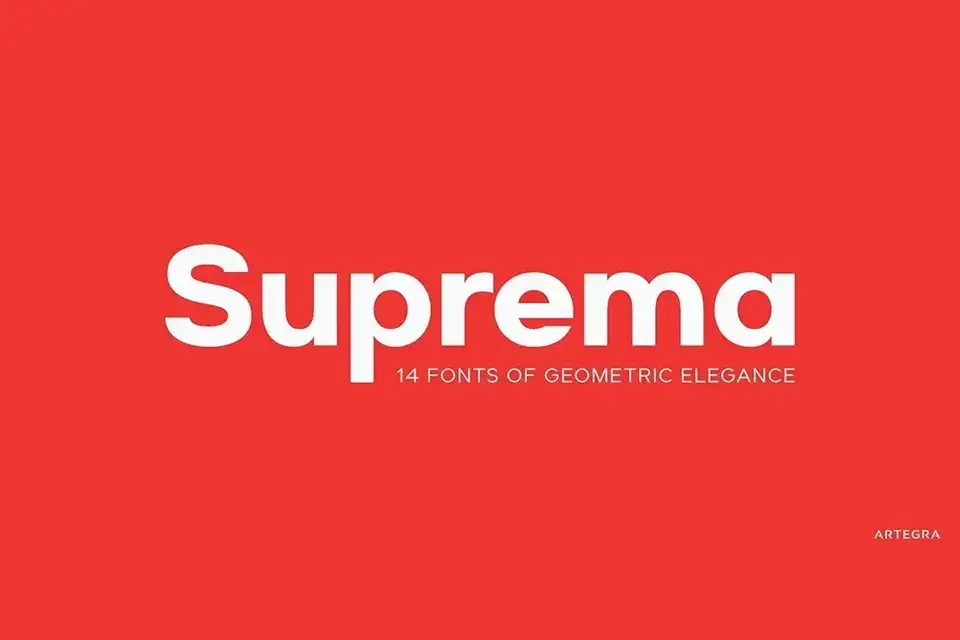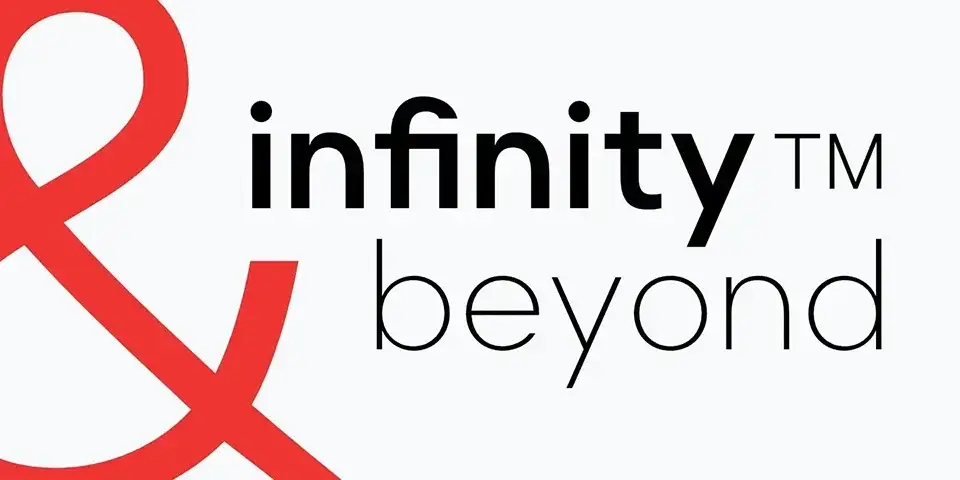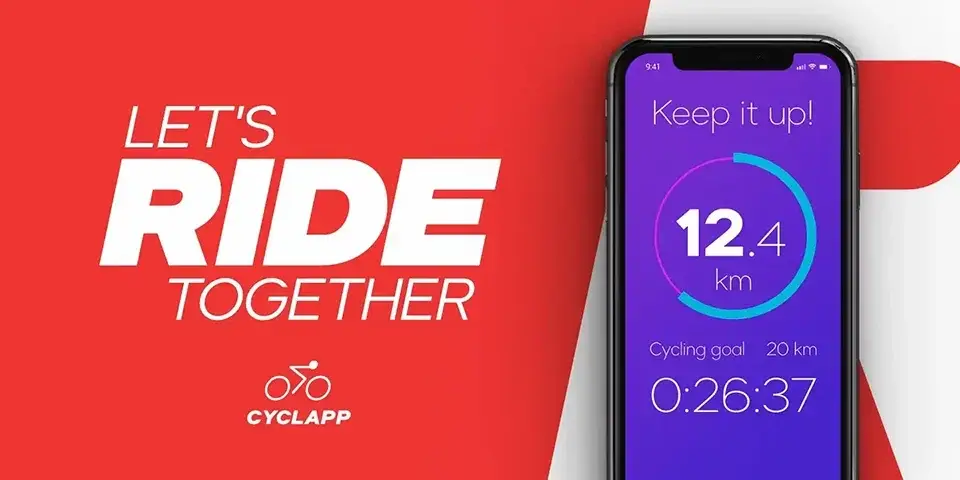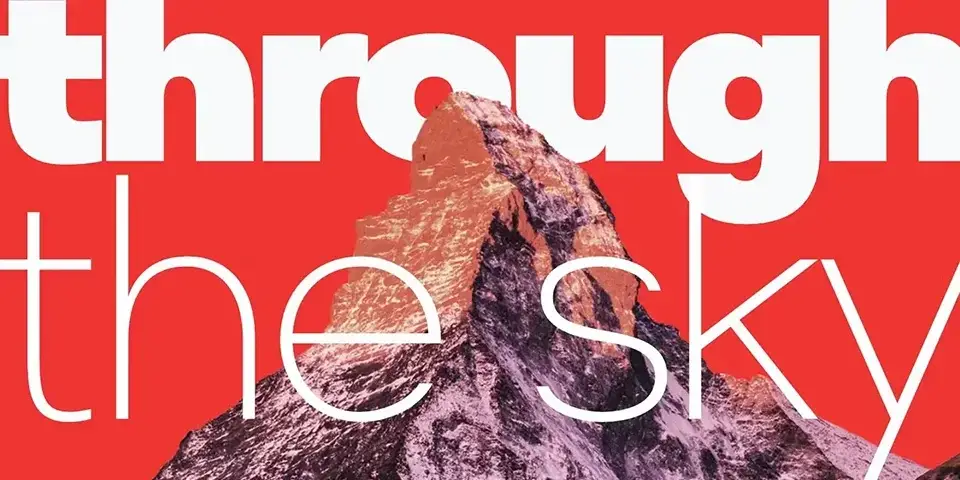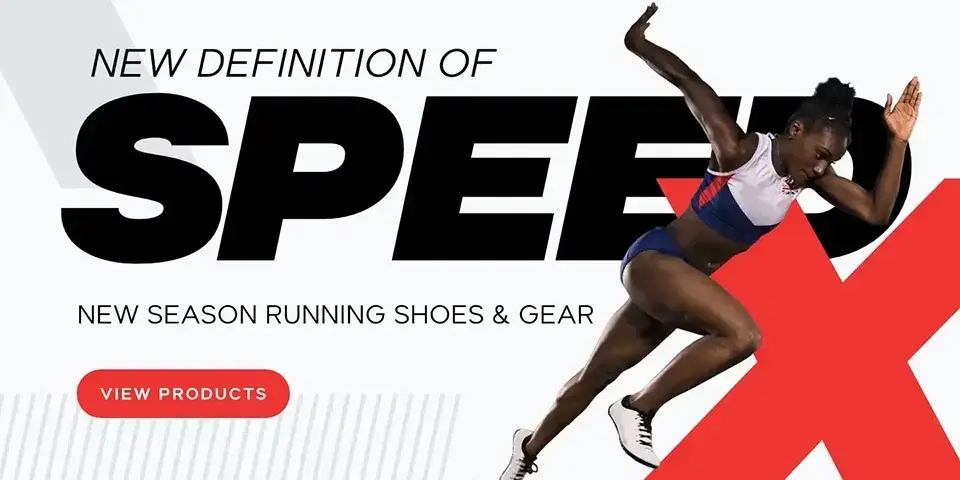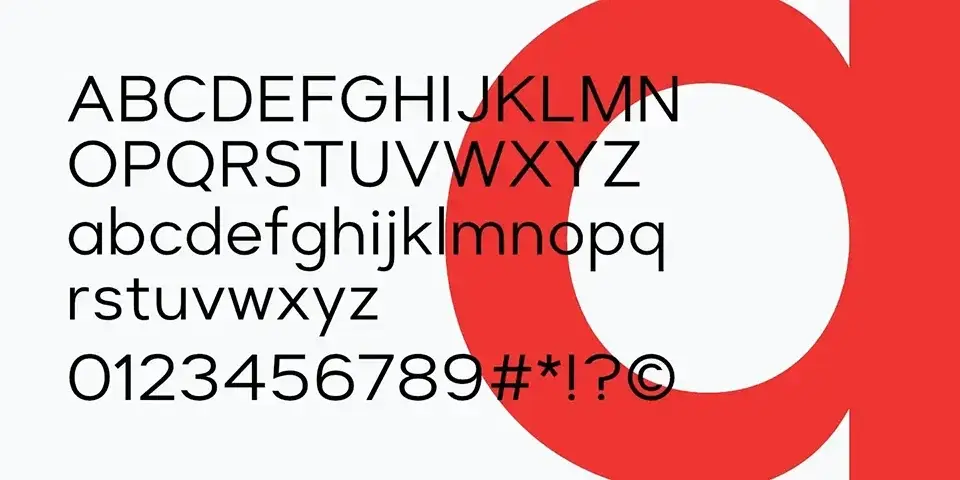
Suprema Font Family
Suprema Font Family is a modern sans serif typeface designed for geometric perfection. Created by Artegra, this versatile font family comprises 14 fonts, including 7 weights with matching true italics. Suprema boasts clean lines, precise angles, and a sleek aesthetic that balances form and function. It offers extensive OpenType features such as tabular lining, proportional oldstyle, ligatures, superscript, subscript, and fractions. The font supports multiple languages, making it ideal for international projects.
Suprema’s elegant and functional design makes it suitable for various applications, from branding and advertising to headlines and body text, adding a touch of modern sophistication to any typographic project.